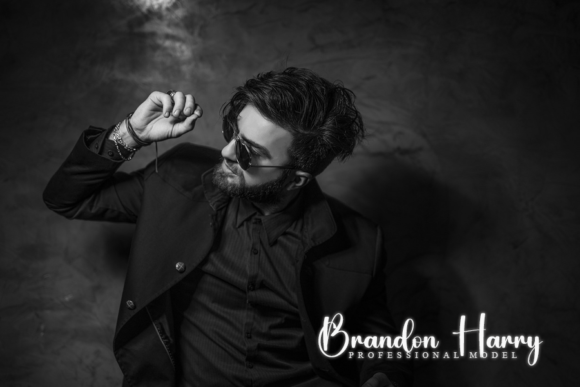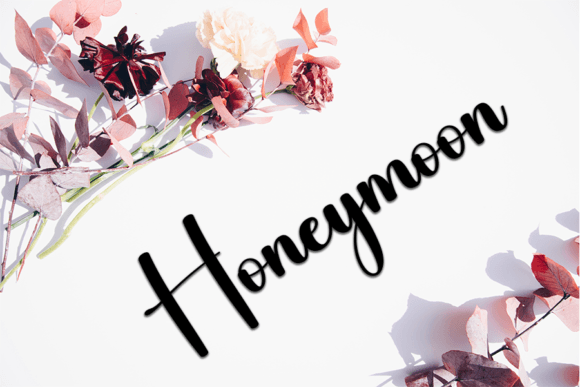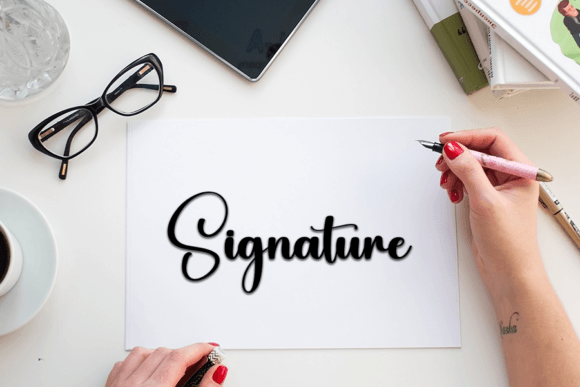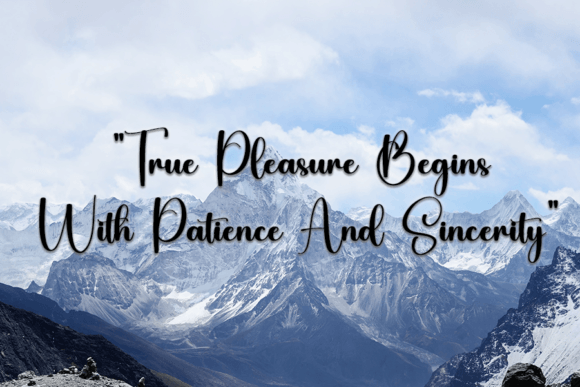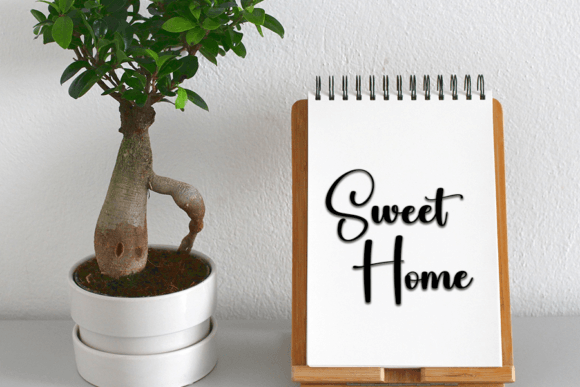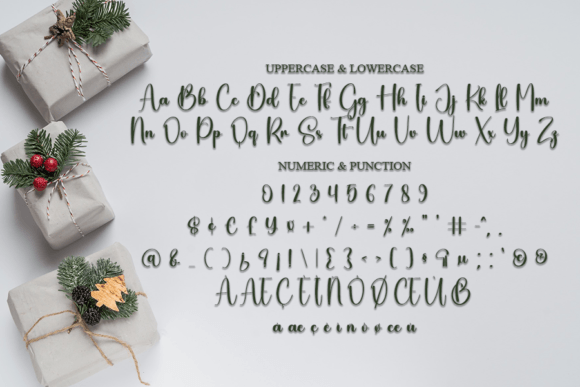
Unleashing the Magic of Handwritten Typography
There’s something special about creating something from scratch – the thrill of bringing an idea to life, the satisfaction of seeing it take shape, and the joy of sharing it with others. As designers, we’ve all experienced that moment when a font choice elevates our work from ordinary to extraordinary. For me, that moment came when I stumbled upon the Ballerina Font, a cool and modern handwritten font that has become my go-to choice for a variety of projects.
The Ballerina Font is perfect for adding a touch of whimsy and personality to crafts, digital designs, presentations, and even greeting cards. Its versatility and charm make it an invaluable asset for designers, allowing us to express our creativity and connect with our audience on a deeper level.
Ballerina Font Key Features
- Font Family: Ballerina
- Unique Characteristics: Ballerina font features elegant and flowing lines, making it suitable for creative and artistic designs, such as wedding invitations, greeting cards, and fashion magazines
Ballerina Font Review
I’ve worked with the Ballerina font on several projects, and I have mixed feelings about it. ✨ On the positive side, it’s a great choice for feminine or elegant designs, and the swashes and flourishes add a touch of sophistication. It’s also highly customizable, with many options for adjusting the letter spacing, line height, and font weight.
- The font’s cursive feel makes it perfect for titles, headings, and other display text.
- The many OpenType features allow for some really beautiful ligatures and swashes.
- The font is highly legible, even at small sizes.
However, there are some limitations to consider. ⚠️ The font can be a bit overwhelming if used in large blocks of text, and the cursive feel can make it difficult to read for some users. Additionally, the font’s ornate details can be distracting if not used thoughtfully.
Overall, I think the Ballerina font is a great choice for projects that require a touch of elegance and sophistication. It’s a bit of a high-maintenance font, but with careful use, it can add a beautiful touch to your design.
Getting the Most Out of the Ballerina Font
Use the Ballerina font for whimsical and feminine designs, such as:
– Wedding invitations and decorations
– Children’s party invitations and decorations
– Fashion and beauty branding
– Artistic and creative projects
The Ballerina font is ideal for:
– Titles and headings
– Quotes and captions
Alternatives to Ballerina Font
Cambria Font
Cambria is a classic serif font, suitable for formal and elegant designs. It is a good alternative to Ballerina Font for projects that require a more traditional and sophisticated look. Cambria has a similar elegance to Ballerina, but with a more formal tone.
Playfair Display is an elegant script font, ideal for high-end designs, luxury brands, and special occasions. It offers a more luxurious and sophisticated feel compared to Ballerina, making it a good choice for projects that require a touch of opulence.
Lato is a modern sans-serif font, suitable for a wide range of designs, from corporate to creative projects. It has a clean and minimalist look, which is quite different from the elegant and traditional feel of Ballerina Font. Lato is a good choice for projects that require a modern and sleek look.
Great Vibes is a beautiful script font, ideal for creative and artistic projects. It has a unique and elegant feel, which is similar to Ballerina Font, but with a more relaxed and casual tone. Great Vibes is a good choice for projects that require a touch of personality and creativity.
Exploring Creative Projects with Ballerina Font
Create a beautiful and delicate wedding invitation that captures the essence of a ballerina’s dance. Use the Ballerina Font to add a touch of elegance and romance to your design.